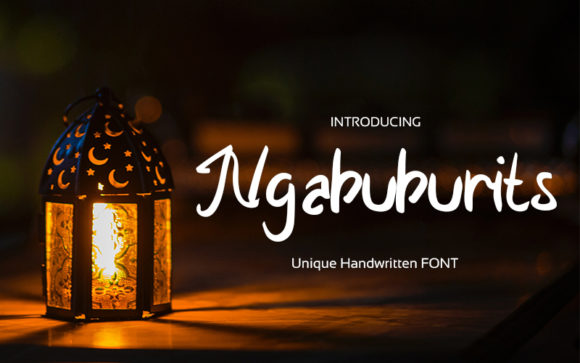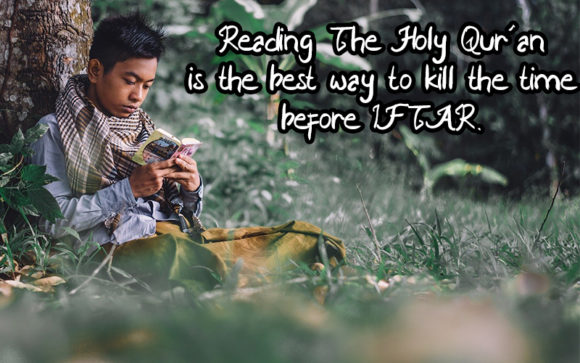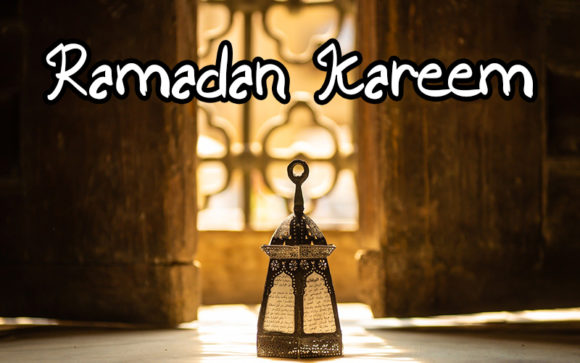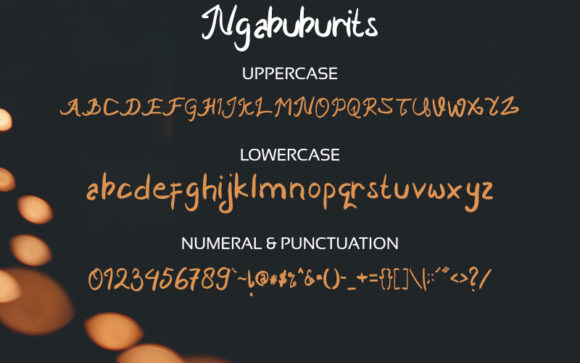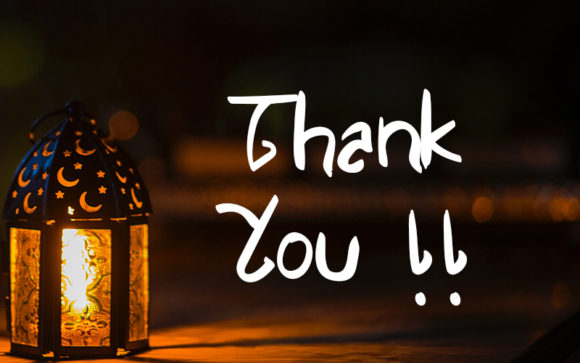
Ngabuburits Font
About Ngabuburits Font
Ngabuburits feels equally charming and elegant. This fantastic handwritten font is best suited for headlines of all sizes, as well as for blocks of text that have both maximum and minimum variations. Whether it’s for web, print, moving images or anything else – Ngabuburits will look spectacular.